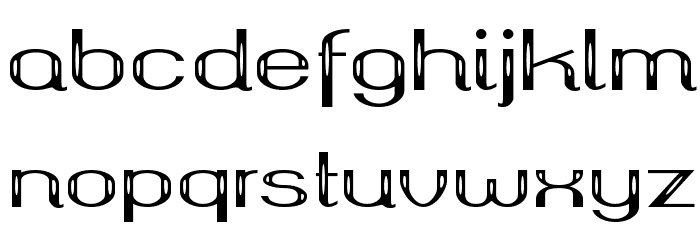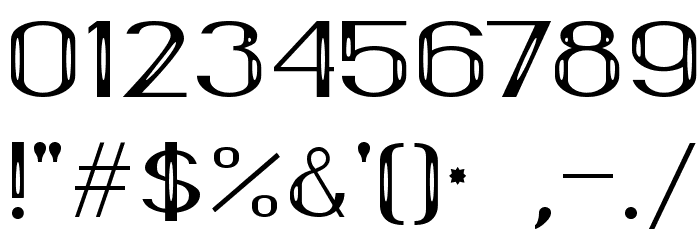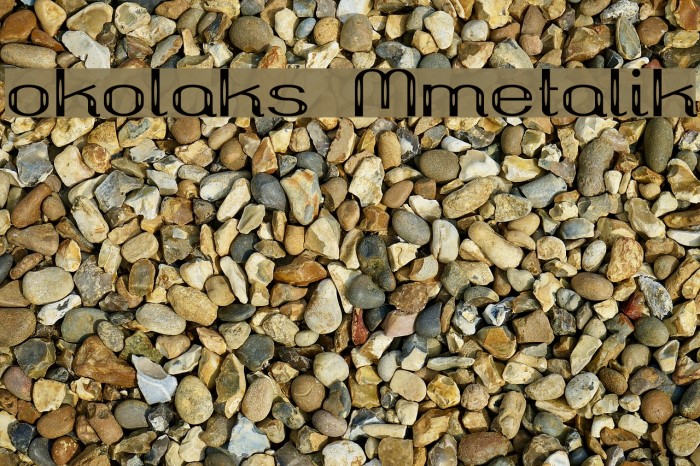
okolaks Mmetalik Font
This font features a unique and modern design with a geometric and futuristic aesthetic. The characters are composed of bold, rounded shapes with distinct cutouts, giving it a mechanical and industrial feel. The uppercase and lowercase letters maintain a consistent style, with the uppercase being slightly more angular. The numbers follow the same design principles, ensuring uniformity across all characters. The special characters are creatively integrated, matching the overall theme of the font. This typeface stands out due to its innovative use of negative space and its bold, eye-catching appearance.
A modern, geometric font with bold, rounded shapes and distinct cutouts.
- Proposed Projects: Ideal for tech-related branding, futuristic posters, and innovative product packaging.